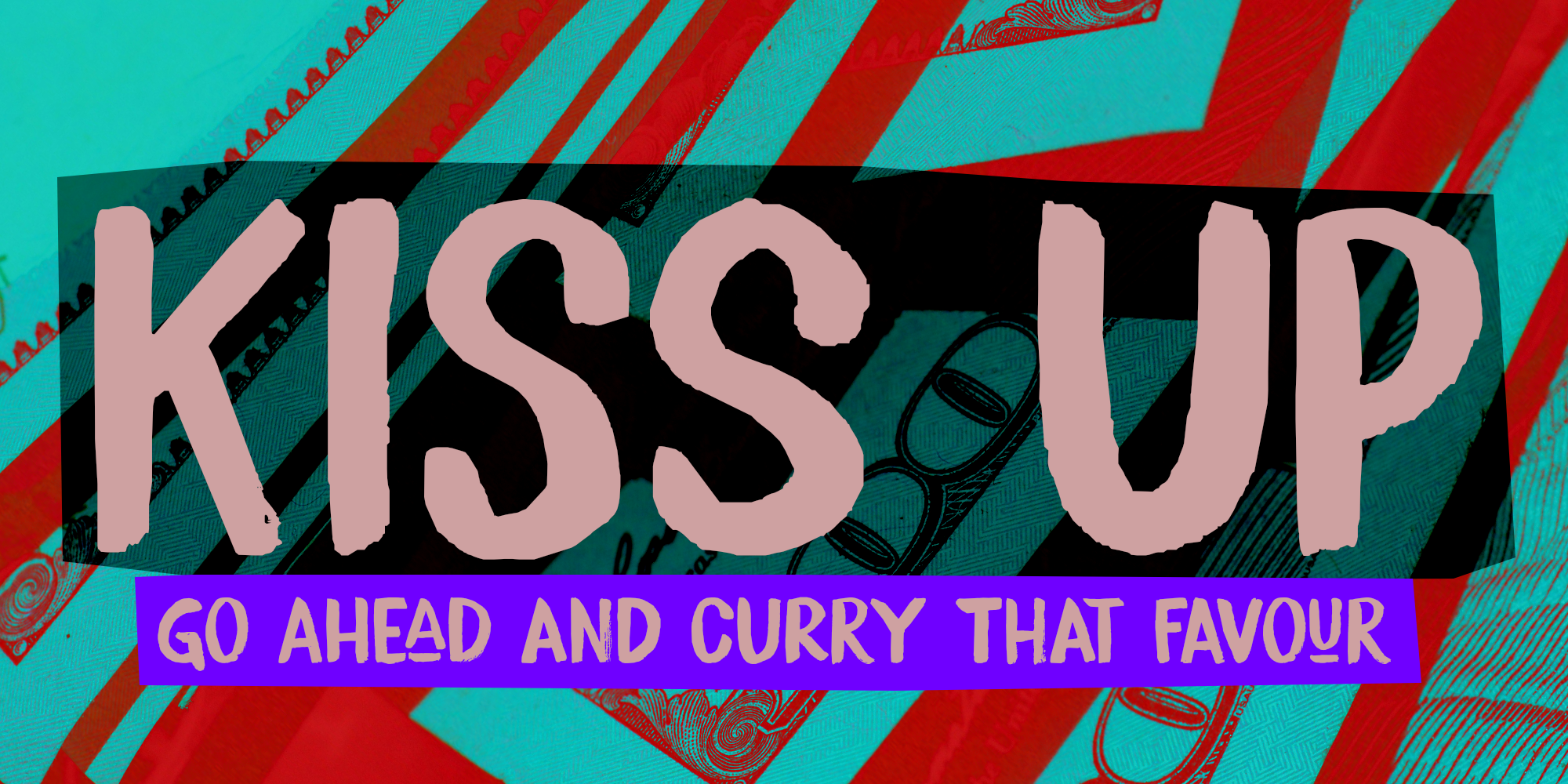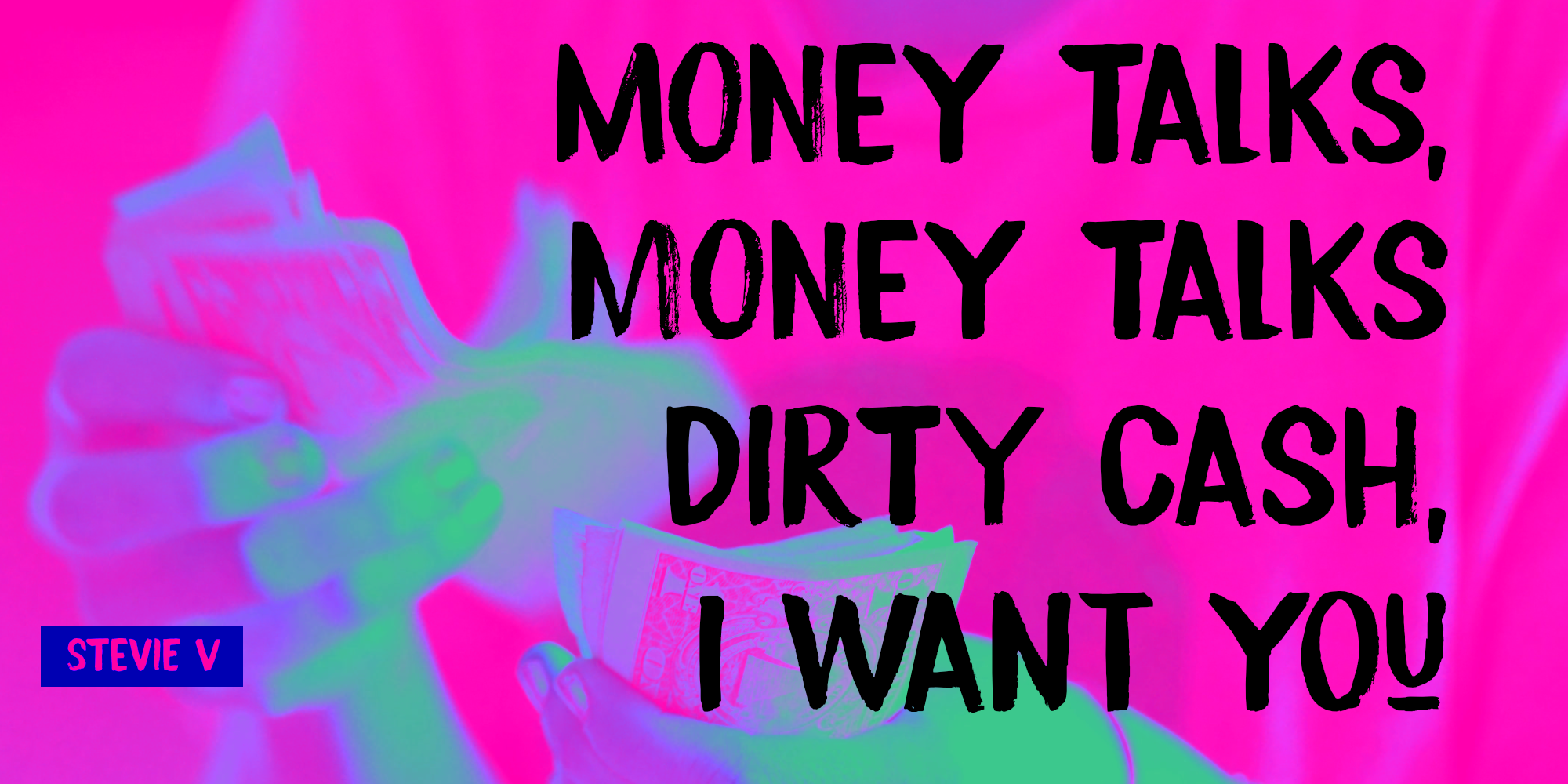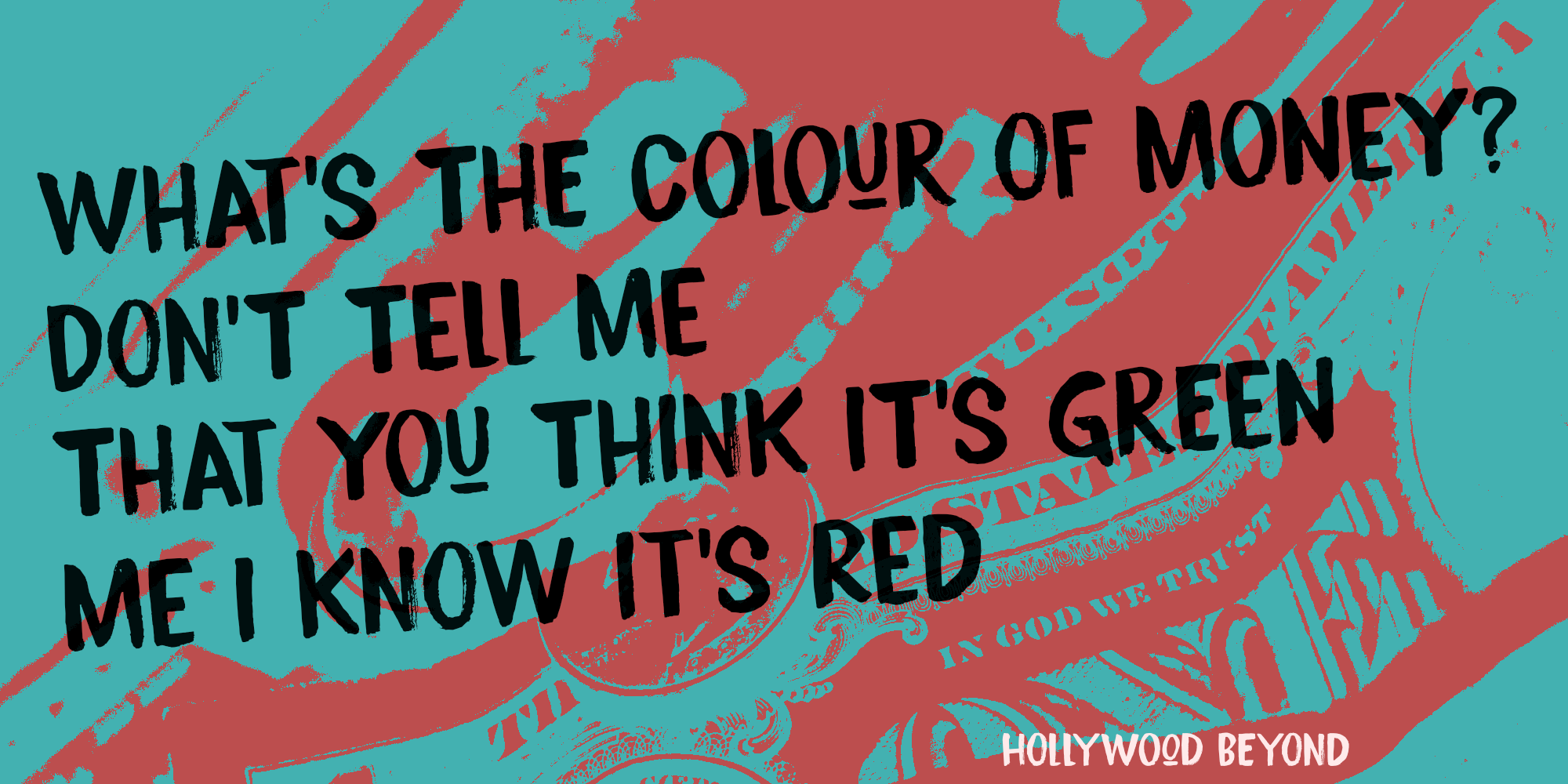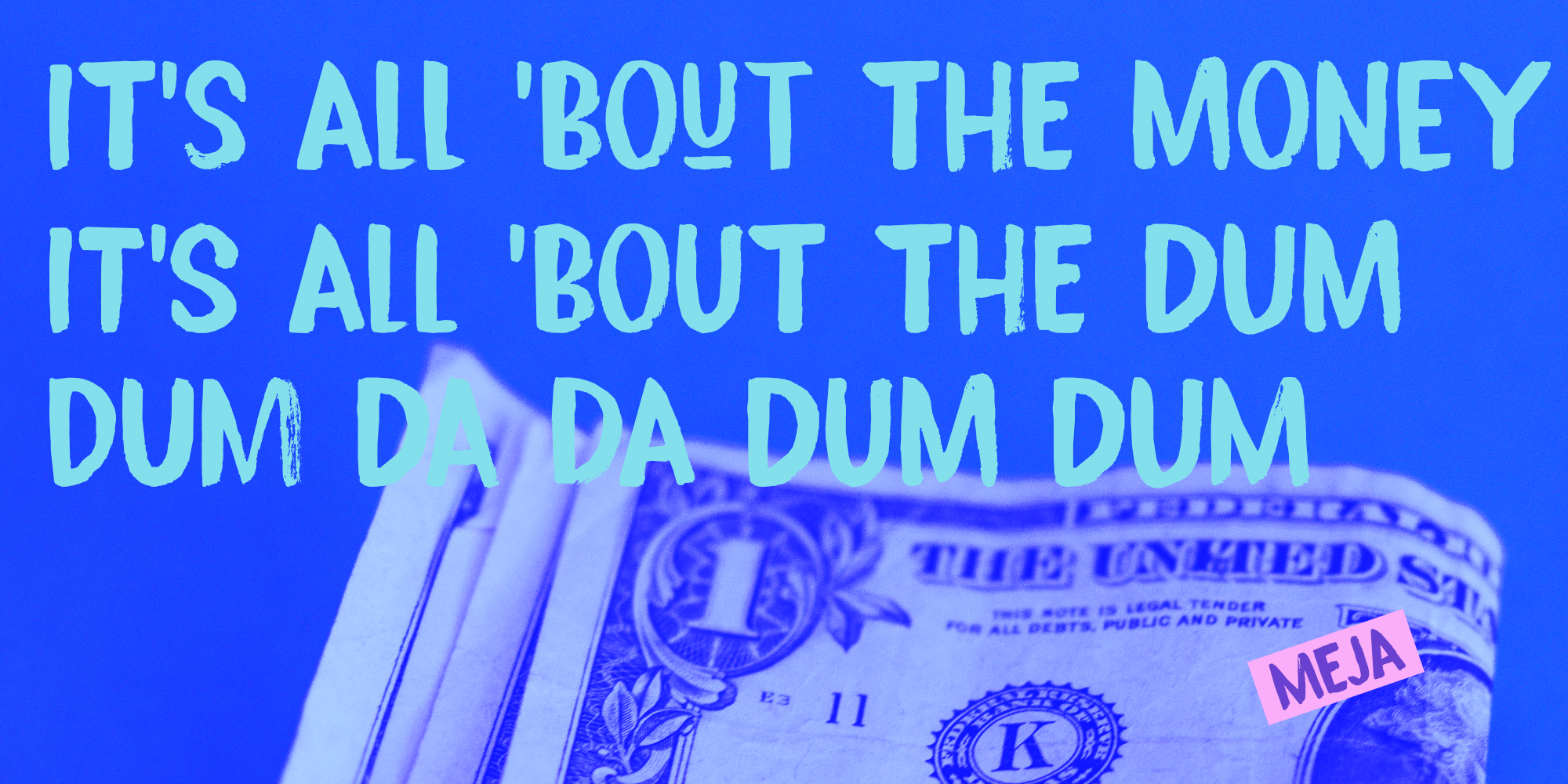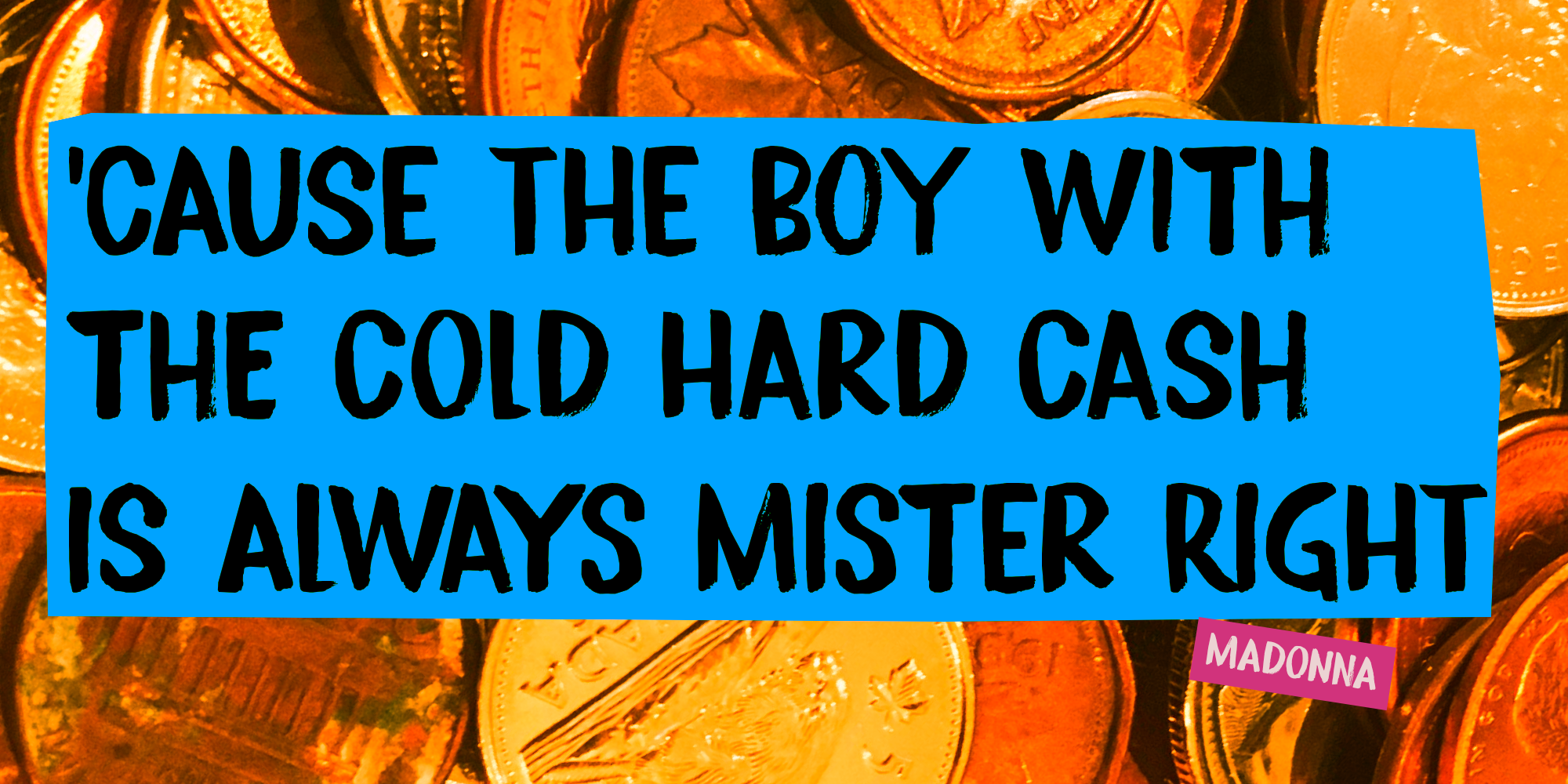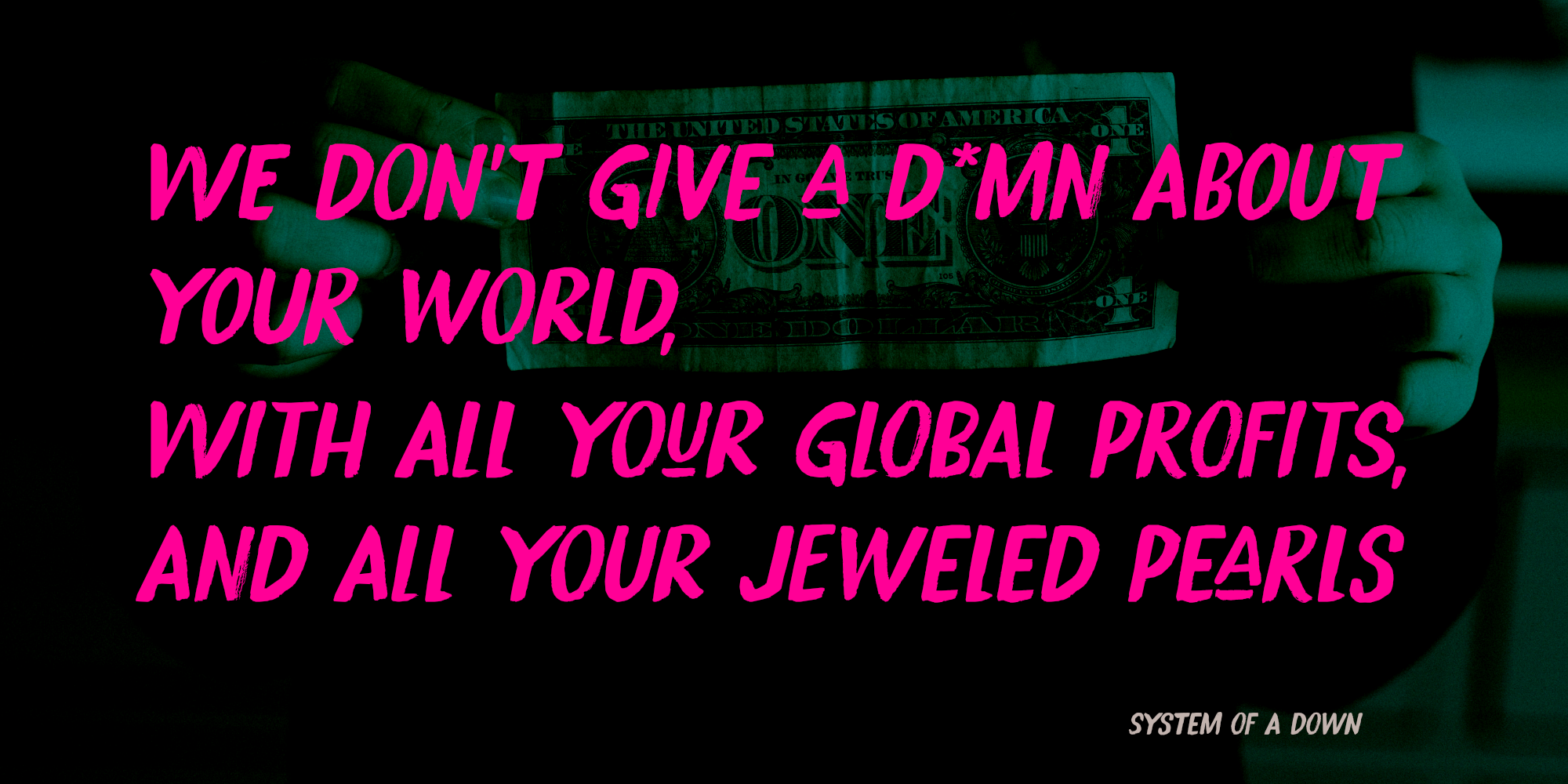
Kiss Up (2 fonts)
Kiss Up comes with a full set of alternates for the lower case glyphs, some extra underscored glyphs and a really nice alternative ampersand. All for you to play with!